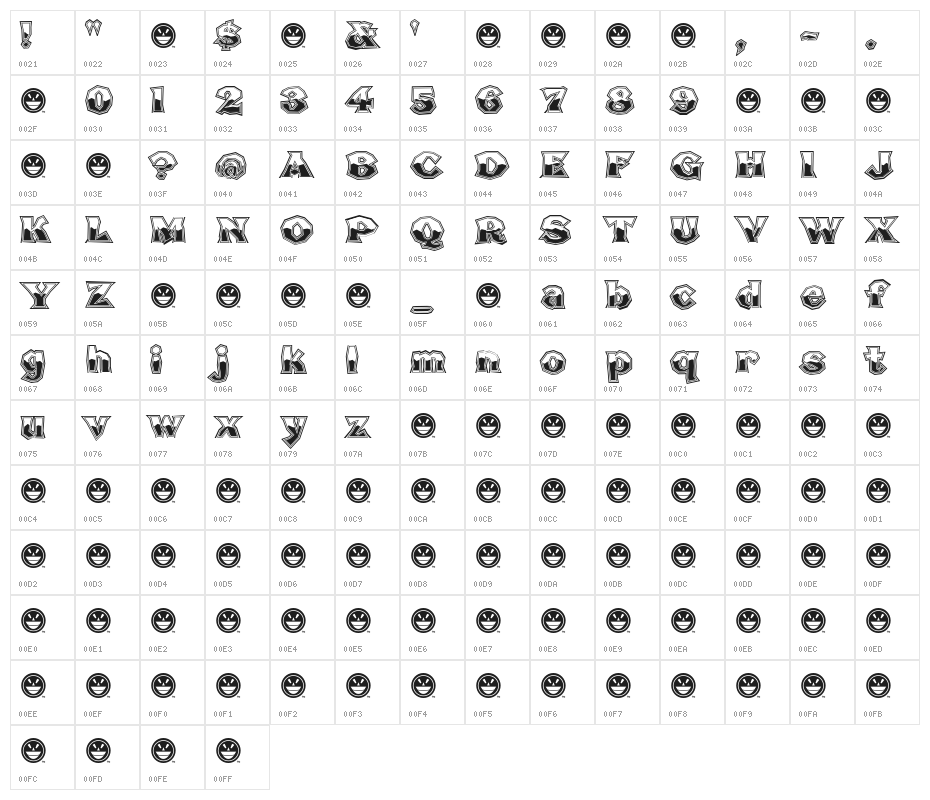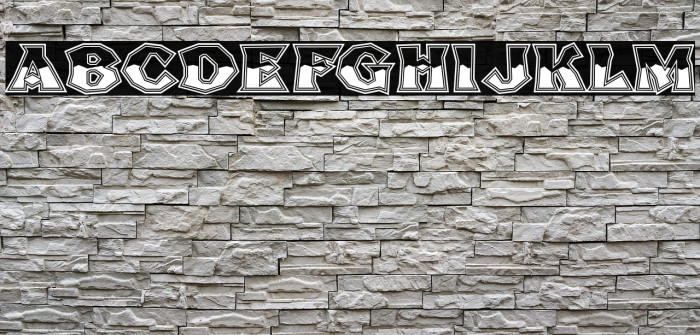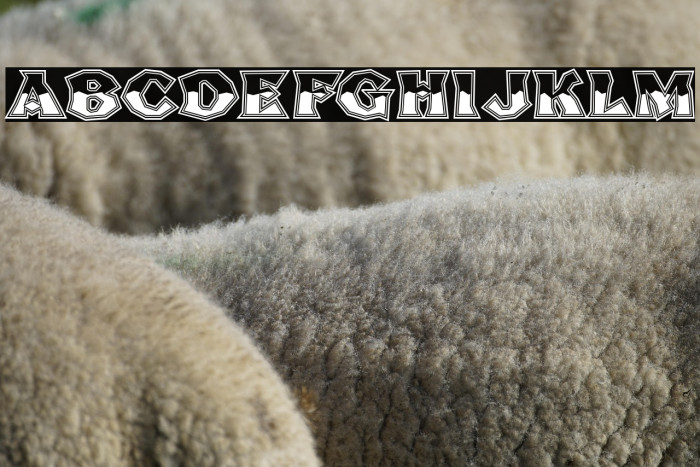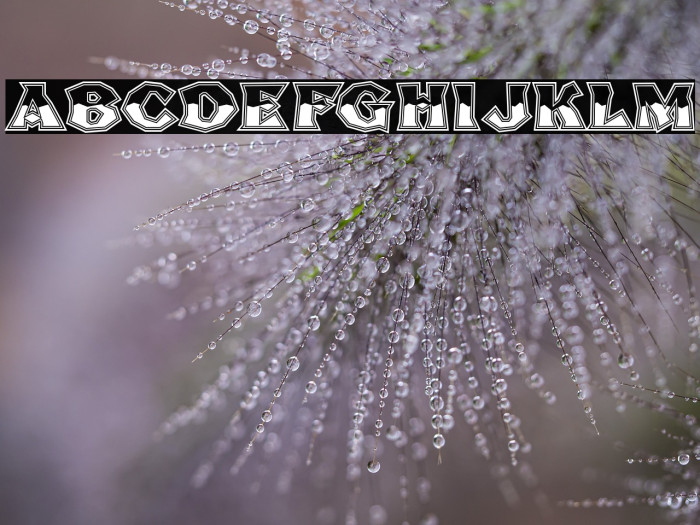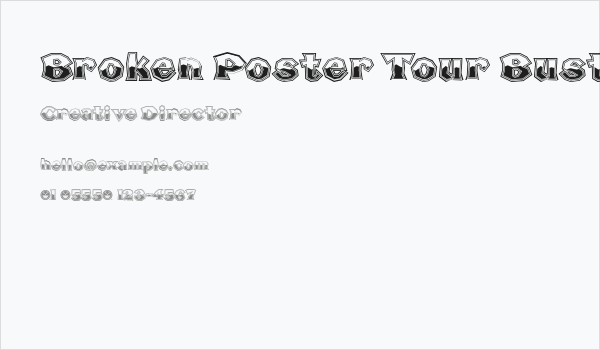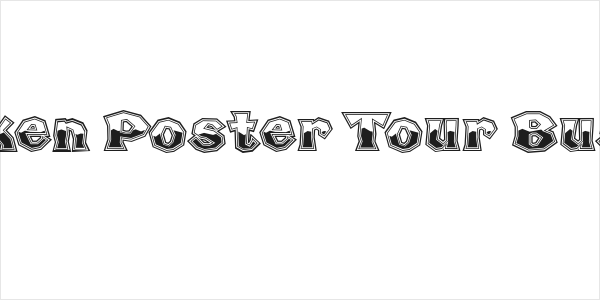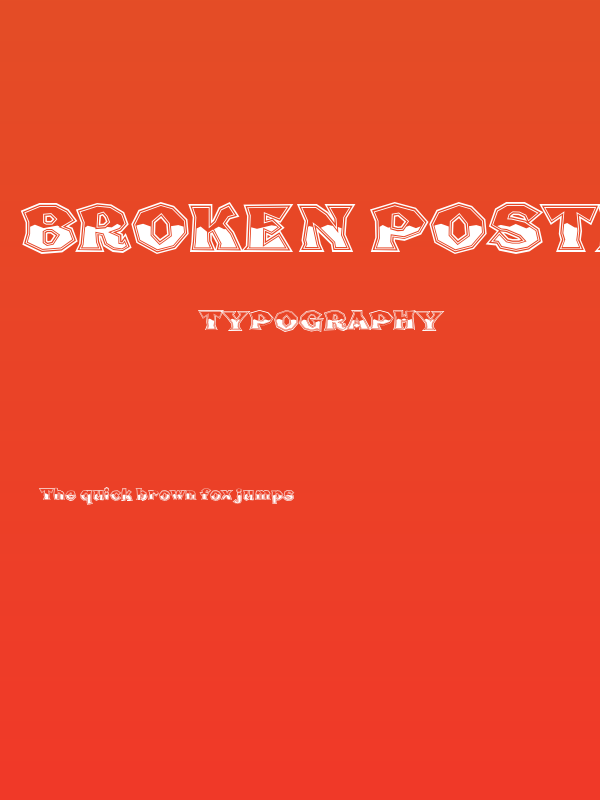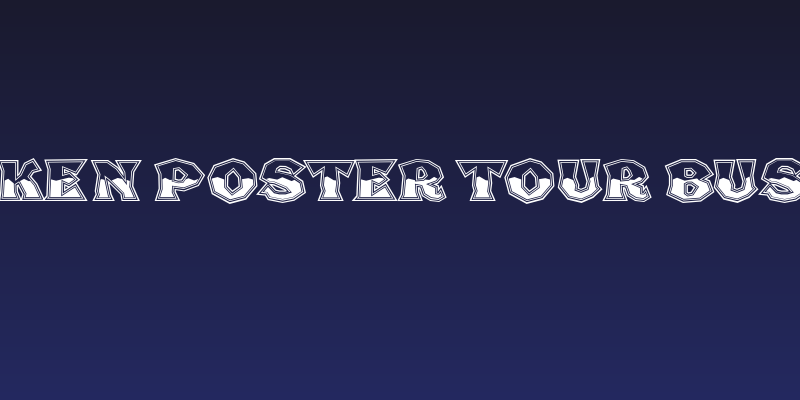
Broken Poster Tour Busted Font
Broken Poster Tour Busted Description
This font features a bold, dynamic style with a three-dimensional effect, characterized by thick outlines and shadowing that give each character a sense of depth. The letters are designed with a playful, almost cartoonish flair, making them stand out with a strong visual impact. The uppercase and lowercase letters maintain a consistent style, with angular edges and a slightly irregular form that adds to the font's quirky charm. Numbers and special characters follow the same design principles, ensuring a cohesive look across all elements. This font is ideal for projects that require a bold statement and a touch of fun.
| Proposed Projects | Perfect for posters, album covers, children's books, and any project needing a bold, playful aesthetic. |